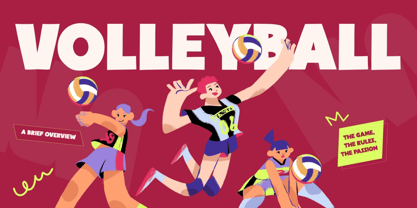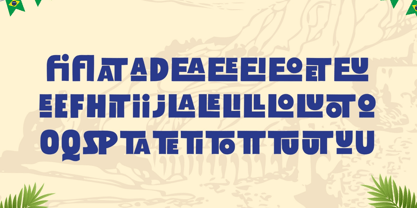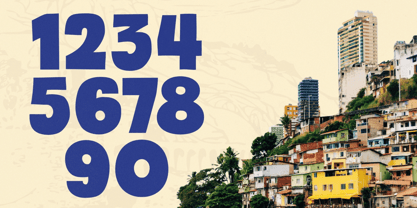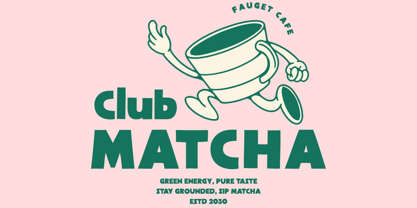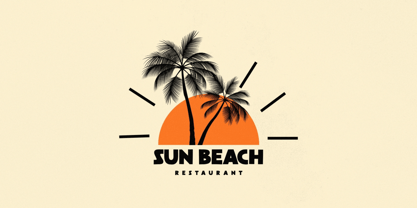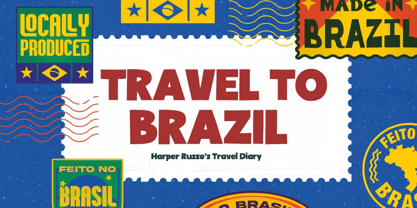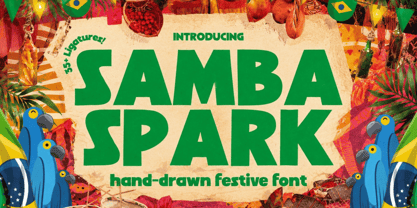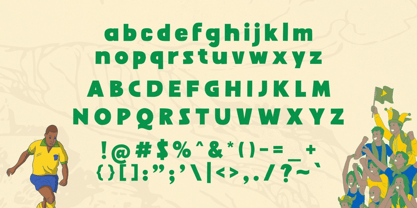
Samba Spark
The Samba Spark Font Family was designed by Igor Ovsyannykov and published by Hipfonts. Samba Spark contains 1 styles. More about this family
Bring rhythm, celebration, and cultural energy into your designs with Samba Spark, a vibrant hand-drawn display typeface bursting with personality, movement, and festive charm. Inspired by the joy of global cultural celebrations, street festivals, music, dance, handcrafted artistry, and ethnic diversity, this expressive font radiates warmth, authenticity, and creative spirit.
Every letter in Samba Spark feels alive—full of organic imperfections, playful curves, and handcrafted character that make your designs feel human, joyful, and unforgettable. Its lively personality makes it perfect for projects that need bold expression and a touch of celebration.
Whether you're designing posters, event branding, party invitations, cultural festivals, music promotions, packaging, social media graphics, children's projects, apparel, or creative editorial work, Samba Spark brings energy, color, and storytelling to every design.
Celebrate creativity. Celebrate culture. Celebrate expression with Samba Spark.